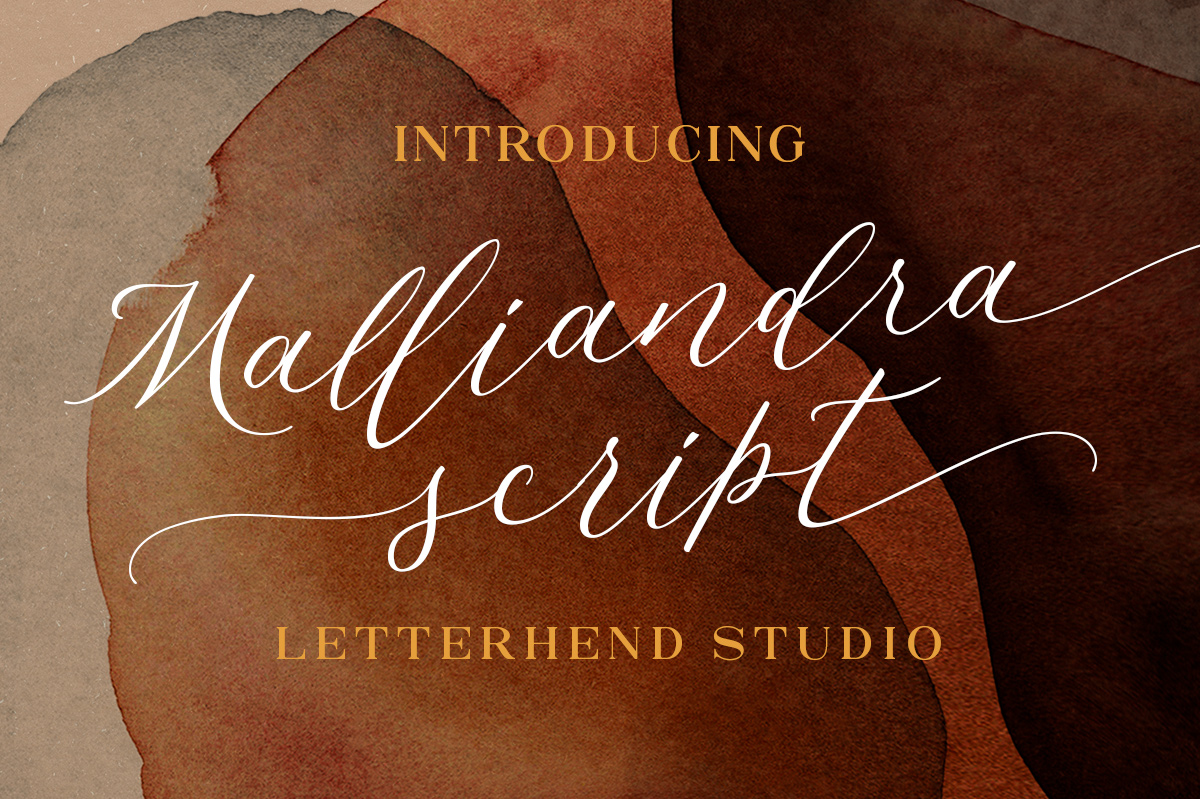
Malliandra Script Font
This elegant and flowing typeface is perfect for luxury wedding invitations, high-end fashion branding, boutique beauty salon logos, premium cosmetics packaging, romantic greeting cards, calligraphy workshops, elegant signature designs, upscale event planning materials, and sophisticated feminine brands that require graceful script typography.
Malliandra Script Font brings excitement to design projects with its exquisite calligraphic flourishes and sophisticated handwritten elegance. The font features beautifully crafted connecting strokes and delicate swashes that create a sense of luxury and refinement. Its feminine charm and artistic flow make it an ideal choice for brands that want to communicate elegance, romance, and personal touch in their visual communications while maintaining exceptional readability.
The Malliandra Script Font family includes various elegant styles: Regular, Bold, Light, Ornamental, Swash, Alternate, and Decorative versions. Each variant maintains the font's distinctive calligraphic character while providing designers with creative flexibility for different luxury applications. The family also features elaborate swash capitals, contextual alternates, beautiful ligatures, and ornamental flourishes that enhance the overall sophisticated script aesthetic.
When searching for premium script typography solutions, Malliandra Script Font Free Download offers an unparalleled combination of elegance and versatility. Professional designers love this font for its ability to instantly create emotional connections with audiences while maintaining the sophistication required for luxury brand applications. The typeface works beautifully across all formats, from delicate invitation cards to elegant digital displays, preserving its calligraphic charm at every application.
The font's calligraphic excellence includes carefully balanced letter spacing, smooth connecting strokes, and authentic hand-lettered variations that prevent mechanical repetition. Whether you're designing wedding stationery, luxury brand campaigns, or feminine product packaging, this font delivers the sophisticated script elegance that creates memorable experiences for discerning audiences seeking personal touch and artistic refinement.
For creative professionals working with luxury and feminine markets, this font represents an invaluable resource for creating captivating script communications. Its versatile nature allows it to work equally well for modern minimalist designs and ornate classical applications while maintaining its distinctive calligraphic personality. Download this exquisite typeface today and experience how elegant script typography can transform your projects into sophisticated brand experiences that capture hearts and inspire lasting emotional connections.